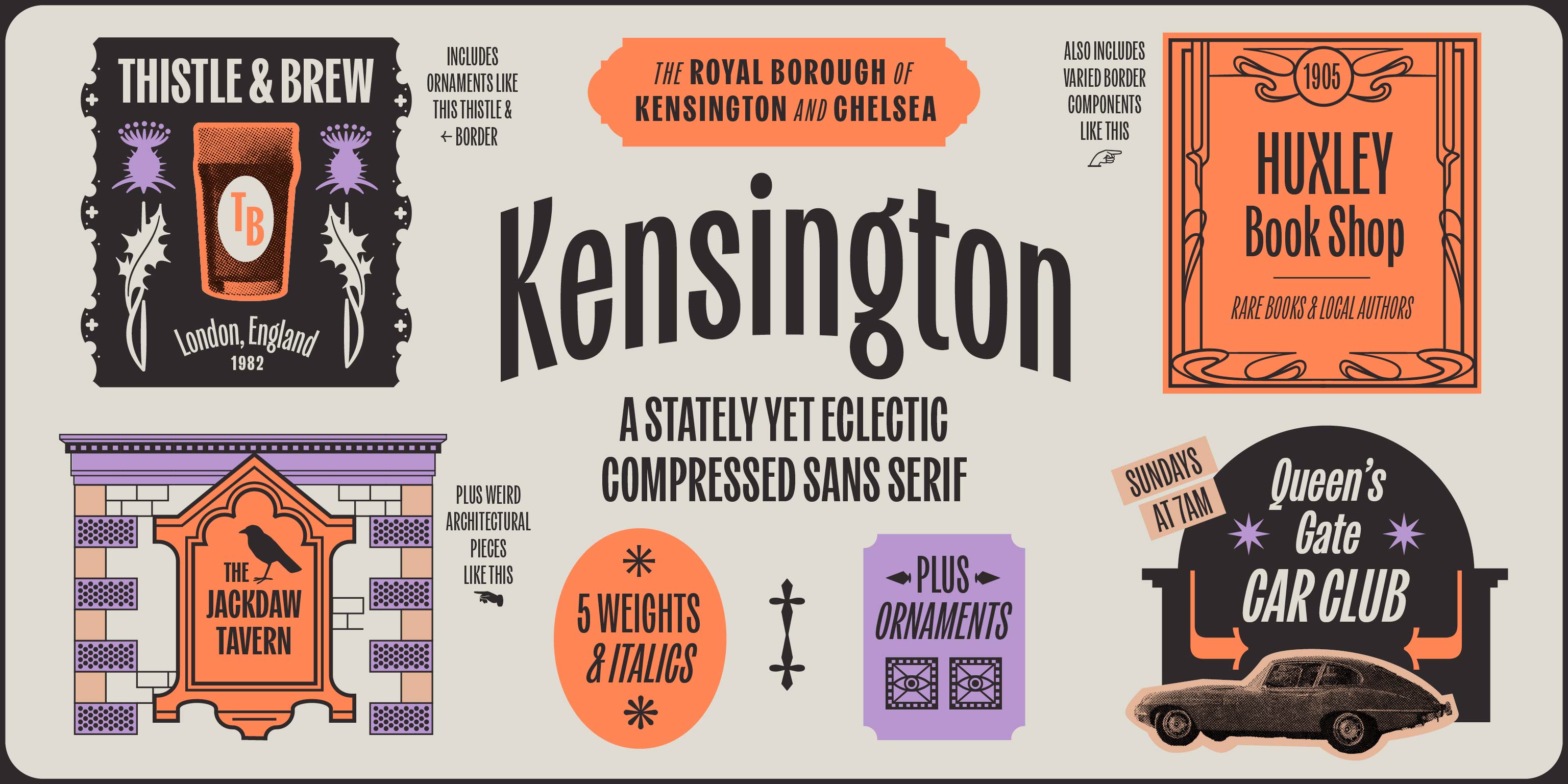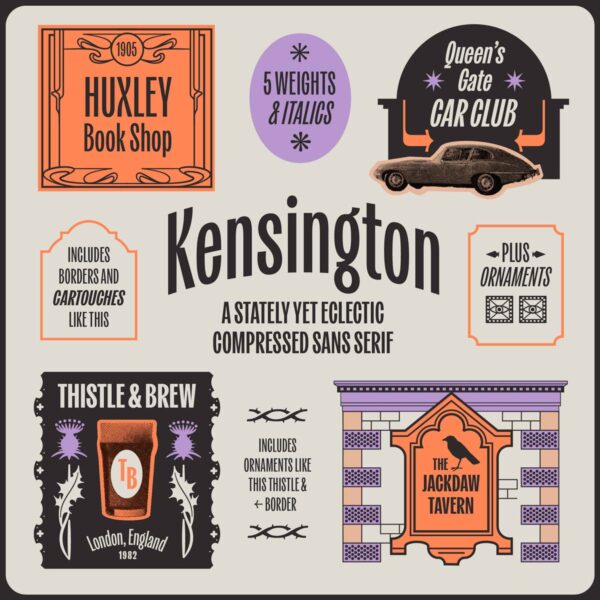
Kensington
Kensington is a narrow, stately, and eclectic sans serif inspired by the exquisitely compact and charming area of West London. Designed by Jen Hood of Hoodzpah in collaboration with Mattox Shuler and Brian Brubaker at Fort foundry.
This whimsical typeface boasts 5 weights plus italics, and a ton of fun ornaments like borders, dividers, and more.
Kensington font is a narrow, stately, and eclectic sans serif inspired by the exquisitely compact and charming area of West London. From the stately porticos of Victorian-style townhomes, to the quaint, cobble-stoned mews, the ornate museums and embassies, the spires and steeples peeking through the chimney tops, and the whimsical gardens – Kensington’s appeal is in its densely packed variety. This typeface offers the same: a compact charm that you can’t quite tie to one style or time.
Available in 5 weights plus italics, the typeface can sway from elegant to bold. Unexpected flourishes in letters like the “x”, “g”, and “k”, lend whimsicality to any text. The typeface features considered ligatures, international language support, stylistic and contextual alternates, and ornamental dingbats. Designed by Jennifer Hood of Hoodzpah, with much help from Mattox Shuler and Brian Brubaker of Fort Foundry.